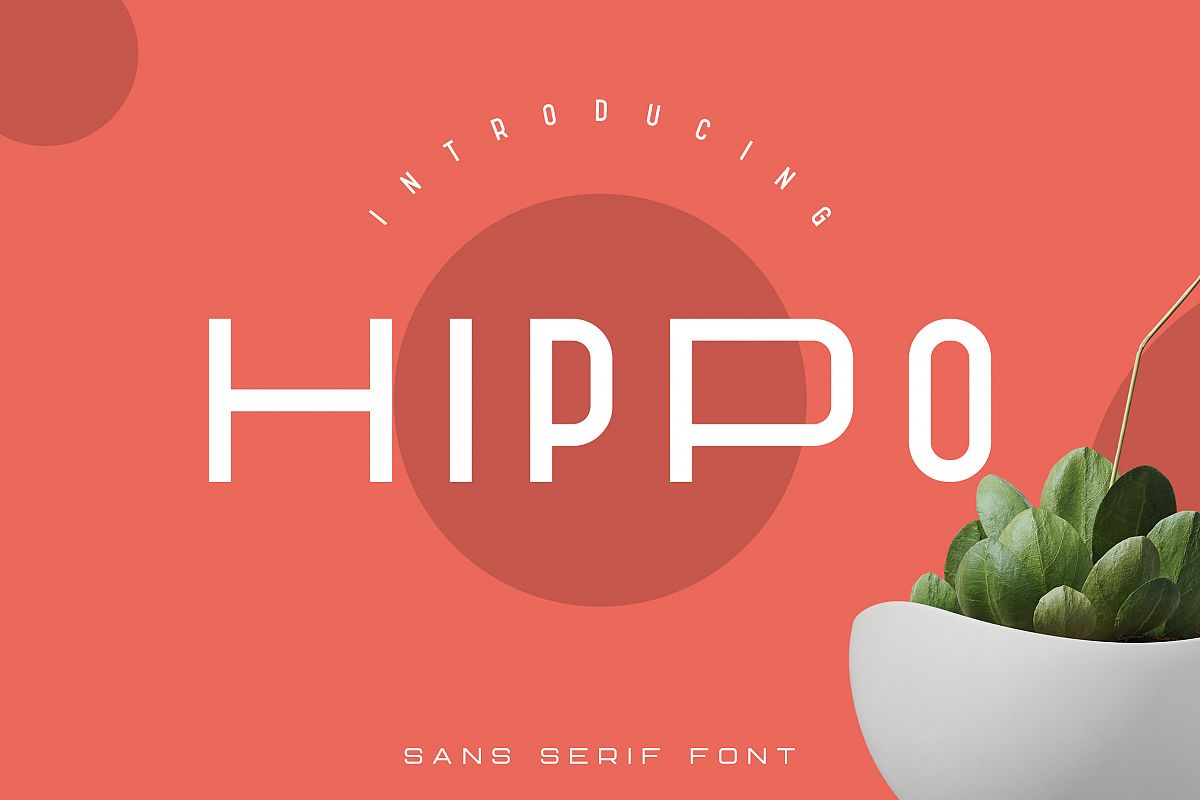
Hippo Sans Serif | 3 styles
Hippo-Regular
Hippo-Outline
Hippo-Rough
Introducing Hippo Sans Serif
Hippo is weird, clean font with 3 styles and multilingual support.
It's a very versatile font that works great in large and small sizes.
Hippo is perfect for branding projects, home-ware designs, product packaging, magazine headers - or simply as a stylish text overlay to any background image.
• Regular
• Outline
• Rough
• Perfect for headlines and logos